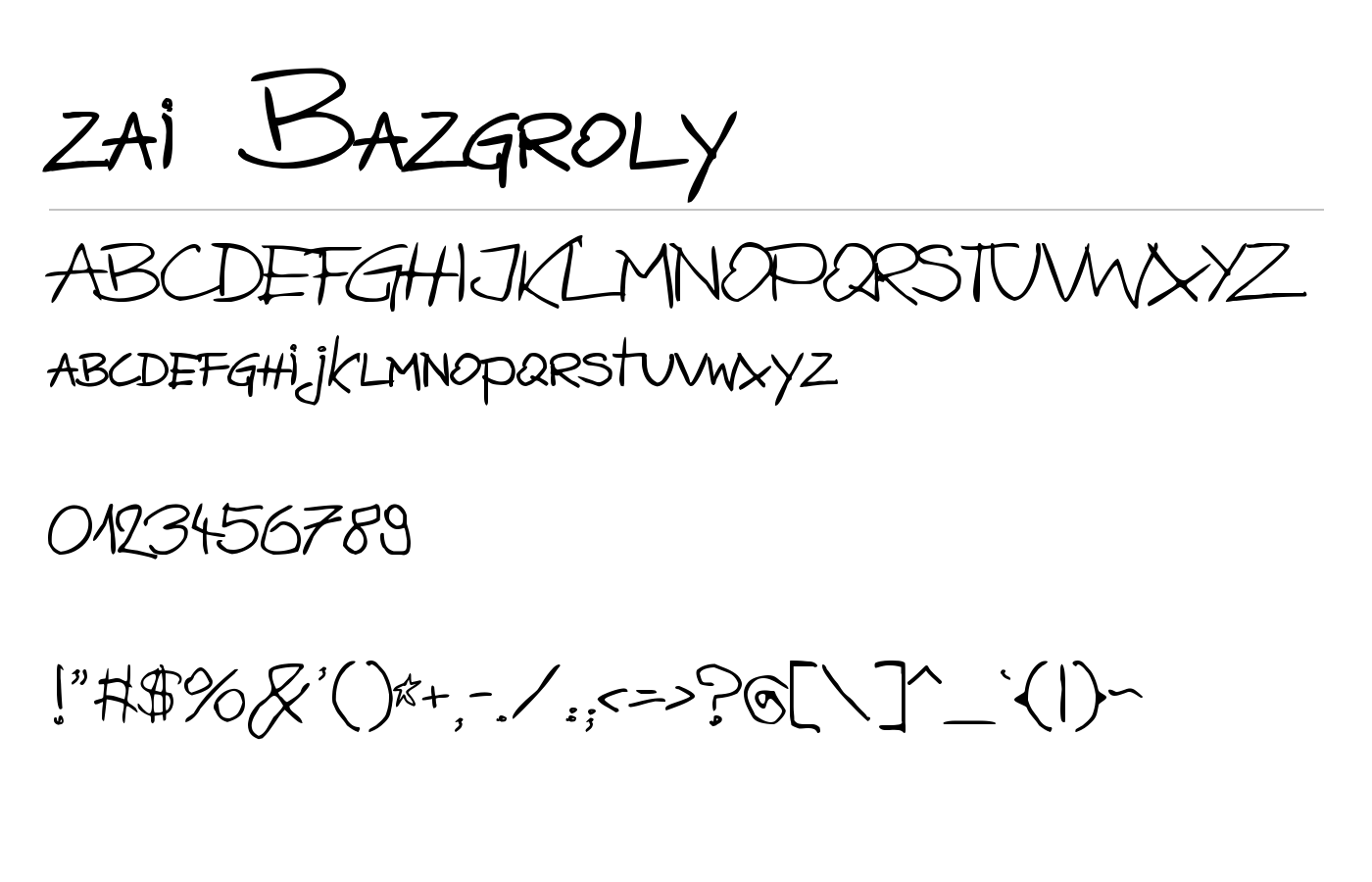
Zai Bazgroly is a playful, handwritten sans serif font characterized by its casual, irregular strokes and lively, uneven letterforms that mimic spontaneous doodling. With its light weight and airy spacing, it brings an informal, creative vibe perfect for projects needing a genuine, personal touch such as invitations, children’s materials, or artistic branding. This font works best in headlines or short texts where its unique personality can shine without sacrificing readability.
zai Bazgroly Font
About zai Bazgroly Font
| Designer | Tomasz Skowroński |